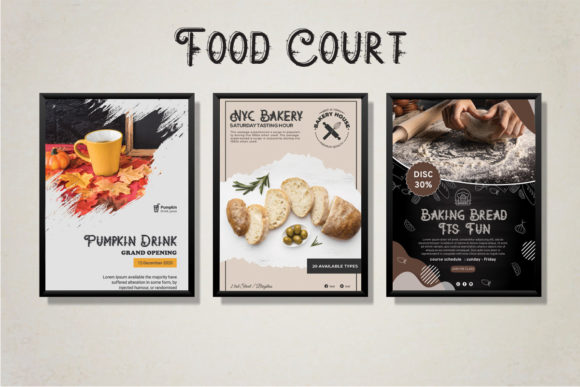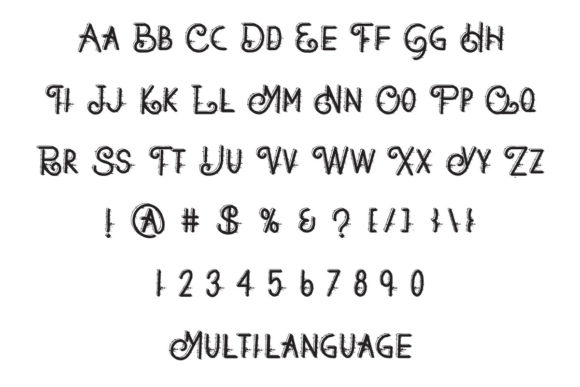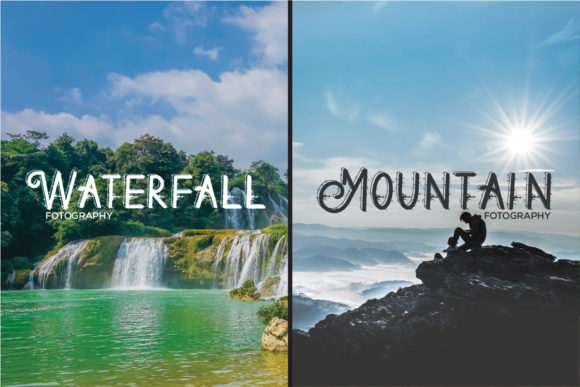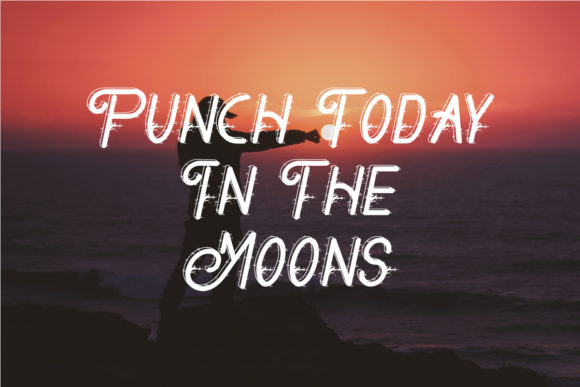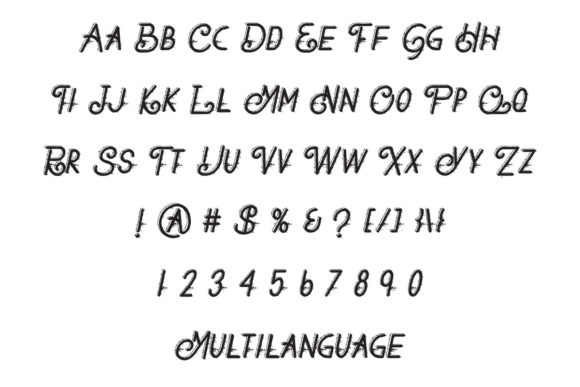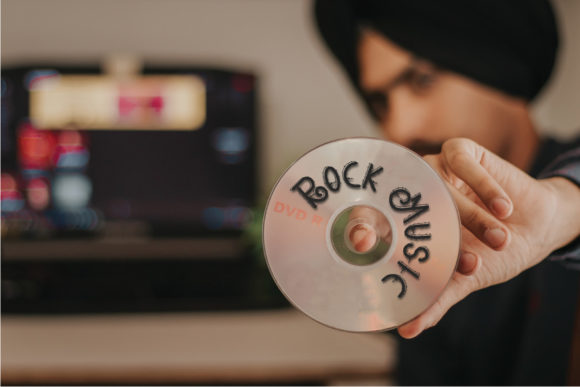
Introducing Barheto Font: A Timeless Vintage Display Font Family
Are you looking for a font that adds a touch of nostalgia and sophistication to your design projects? Look no further than Barheto Font, a vintage display font family that’s perfect for creating stunning visuals. In this article, we’ll dive into the world of Barheto Font and explore its features, uses, and benefits for designers and crafters.
What is Barheto Font?
Barheto Font is a carefully crafted vintage display font family that’s designed to evoke a sense of nostalgia and elegance. Its unique and distinctive style makes it perfect for a wide range of design projects, from branding and logos to stationery and signage. With its classic charm and modern twist, Barheto Font is sure to capture the attention of your audience and leave a lasting impression.
Key Features of Barheto Font
So, what makes Barheto Font so special? Here are some of its key features:
- Vintage style: Barheto Font boasts a unique vintage style that’s reminiscent of classic typography.
- Display font: Designed specifically for display purposes, Barheto Font is perfect for headlines, titles, and other attention-grabbing elements.
- Highly legible: Despite its ornate style, Barheto Font is highly legible, making it suitable for use in a variety of contexts.
- Versatile: Barheto Font can be used in a wide range of design projects, from print materials to digital applications.
Uses of Barheto Font
So, what can you use Barheto Font for? The possibilities are endless! Here are some ideas to get you started:
- Branding: Use Barheto Font to create a memorable brand identity that stands out from the crowd.
- Logos: Create a stunning logo that showcases your brand’s personality and style.
- Stationery: Add a touch of elegance to your stationery, including business cards, letterheads, and envelopes.
- Signage: Use Barheto Font to create eye-catching signage that grabs attention and communicates your message.
- Flyers and brochures: Add a vintage touch to your marketing materials with Barheto Font.
Industries that Can Benefit from Barheto Font
Barheto Font is suitable for a wide range of industries, including:
- Restaurant and cafe: Add a touch of nostalgia to your restaurant or cafe’s branding and marketing materials.
- Music and entertainment: Use Barheto Font to create stunning posters, flyers, and other promotional materials for music events and performances.
- Automotive: Create a bold and eye-catching brand identity for your car dealership or automotive business.
- Property: Use Barheto Font to create elegant and sophisticated marketing materials for your real estate business.
Tips for Using Barheto Font
Here are some tips for getting the most out of Barheto Font:
- Use it sparingly: Barheto Font is a display font, so use it sparingly to create maximum impact.
- Experiment with colors: Try pairing Barheto Font with different colors to create a unique and eye-catching effect.
- Mix and match: Combine Barheto Font with other fonts to create a visually interesting and dynamic design.
In conclusion, Barheto Font is a versatile and stylish vintage display font family that’s perfect for designers and crafters looking to add a touch of nostalgia and sophistication to their design projects. With its classic charm and modern twist, Barheto Font is sure to capture the attention of your audience and leave a lasting impression. So why wait? Download Barheto Font today and start creating stunning visuals that will take your designs to the next level!